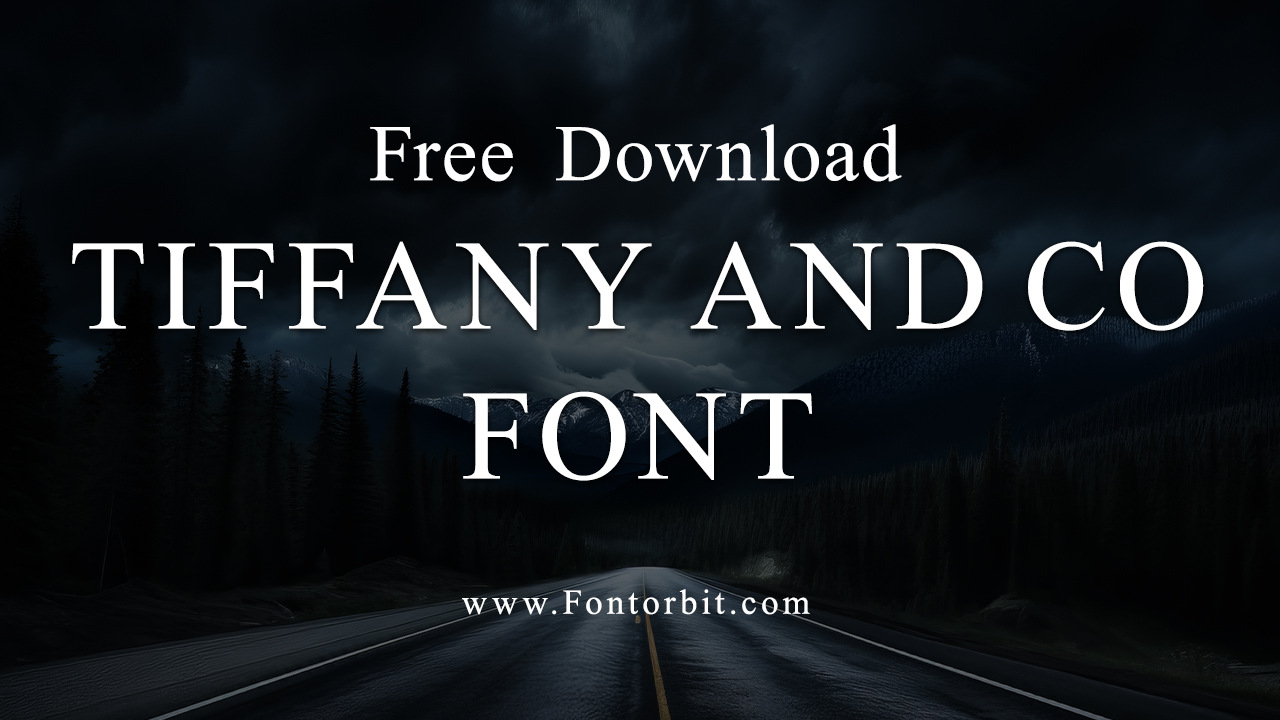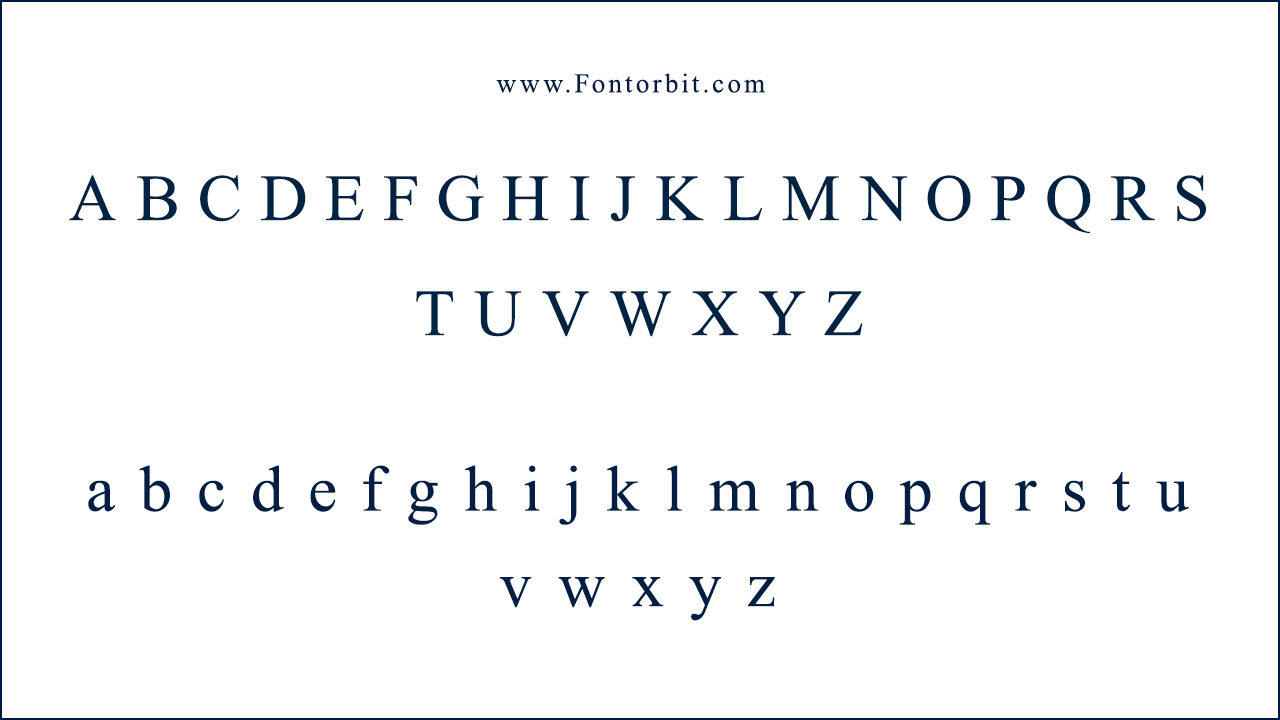
Tiffany And Co Font is an elegant and sophisticated typeface specifically designed for the luxury brand Tiffany & Co. The original Tiffany’s logo uses a font called Baskerville for its lettering.
The font, created by Hoefler Type Foundry, captures the timeless elegance and prestige of the brand. It is used in various branding and design applications to maintain Tiffany & Co.’s iconic image.
The Tiffany And Co Font Family Includes
- Baskerville Font
Tiffany & Co. Font epitomizes luxury and refinement, featuring a versatile family that includes Old Baskerville TS Regular, the primary serif typeface for the logo, designed by John Baskerville for a classic, sophisticated look; Sterling, a high-contrast serif by Hoefler Type Foundry for elegant text; and Avenir Next, a modern Humanist sans-serif adding a contemporary touch.
Notable Uses Of Tiffany And Co Font
Tiffany & Co. Font excels in luxury branding by elevating the visual identity of premium products and services. Its elegant design enhances marketing materials such as brochures and advertisements, adds refinement to website and e-commerce platforms, and ensures high-end presentation in product packaging.
The font also reflects sophistication in event invitations, maintains brand consistency in retail signage, and embodies the brand’s prestige in corporate communication. Its classic serif look is ideal for:
- Luxury Branding
- Marketing Materials
- Brochures,
- Advertisements,
- Promotional items.
- Website Design
- Product Packaging
- Event Invitations:
- Collaterals
- Retail Signage
- Corporate Communication
Tiffany And Co Font Found In Use
You will frequently see Tiffany & Co. Font in contexts that emphasize luxury and timeless elegance. Its refined appearance is a hallmark of the brand and is used on Tiffany & Co logo, product packaging, website and digital media, and high-end marketing collateral, reinforcing the brand’s refined visual identity. Tiffany & Co. Font is prominently featured in contexts emphasizing luxury and timeless elegance,
Tiffany & Co. Font embodies luxury and timeless elegance with its sophisticated serif design. Created specifically for the brand, its classic and refined style is perfect for high-end branding and design projects. Combining Tiffany & Co. Font with modern sans-serifs or clean design elements can enhance its visual impact and appeal.
Q1: Is Tiffany & Co. Font Suitable For All Types Of Design Projects?
Tiffany & Co. Font is ideal for luxury and high-end branding projects. Its classic style is perfect for formal and upscale applications but may not be suitable for casual or informal designs.
Q2: What Makes Tiffany & Co. Font Different From Other Serif Fonts?
Tiffany & Co. Font is distinctive due to its bespoke design, created specifically for Tiffany & Co. by Hoefler Type Foundry. Its high contrast and delicate serifs contribute to its unique and luxurious appearance.
Q3: What Are The Popular Uses Of Tiffany & Co. Font?
Tiffany & Co. Font is commonly used in luxury branding, marketing materials, website design, product packaging, and high-end event invitations.
Q4: What Are The Design Principles Behind The Tiffany & Co. Font?
The design principles of Tiffany & Co. Font focus on elegance, sophistication, and timeless luxury. The font features high contrast and delicate serifs that embody the brand’s refined aesthetic.
Q5: What Color Palette Is Typically Used With Tiffany & Co. Font?
Tiffany & Co. Font is often paired with Tiffany Blue for a classic look. The contrast between the font’s black or dark color and the Tiffany Blue background enhances readability and visual appeal.